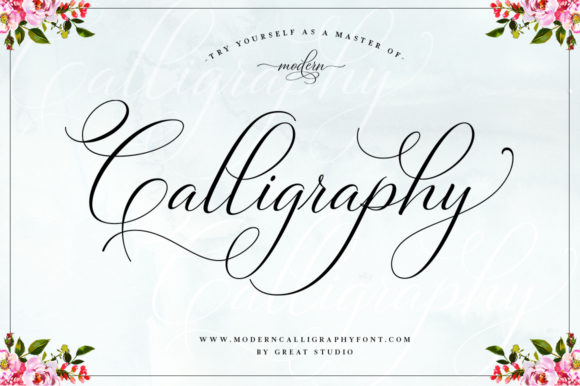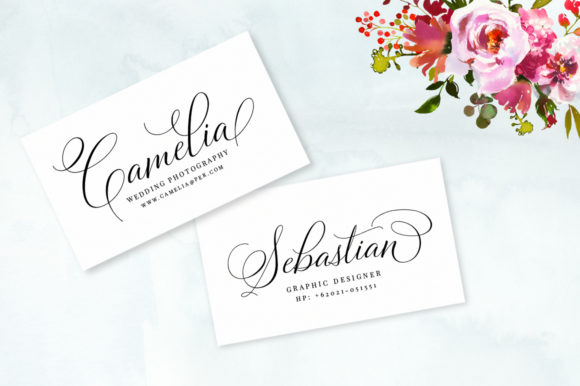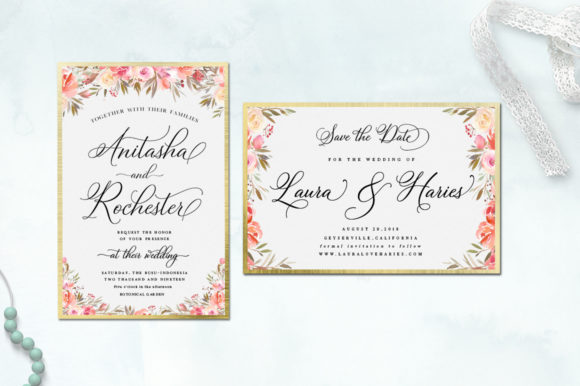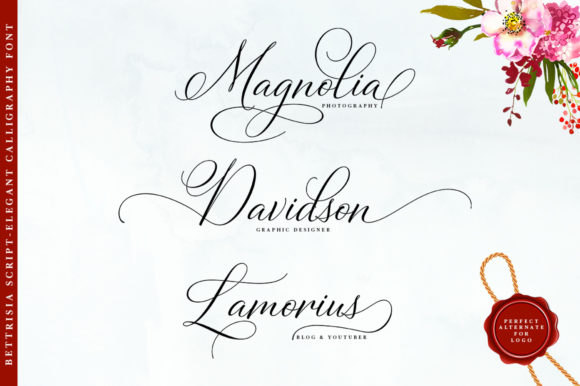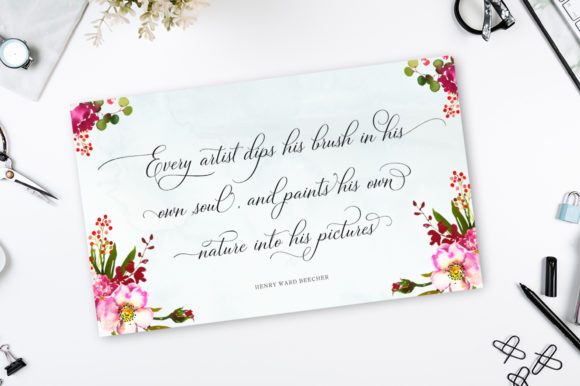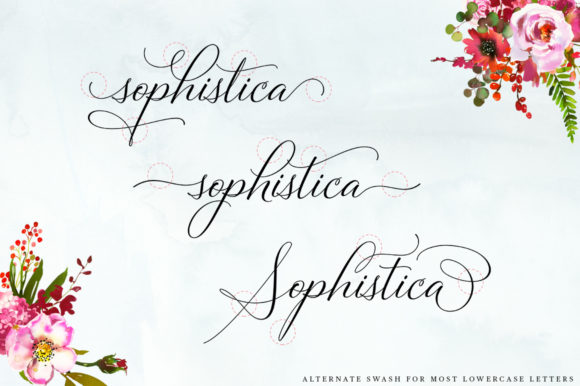
Introducing Bettrisia Script Font: Elevate Your Designs with Elegance
In the world of typography, few fonts manage to capture the essence of elegance and sophistication as effectively as the Bettrisia Script Font. This modern and elegant calligraphy script is a masterpiece of font design, blending the classic decorative elements of copper script with a modern touch. The result is a font that exudes style, femininity, and sensuality, making it an ideal choice for designers and crafters looking to add a touch of glamour to their projects.
The Design Behind Bettrisia
Bettrisia was designed with meticulous attention to detail, ensuring that every character, from the flowing strokes to the intricate connections, contributes to a stylish and elegant aesthetic. This high level of detail not only makes the font easy to read but also allows for a wide range of creative applications. Whether you’re working on a logo, invitation, menu, or novel, Bettrisia provides the perfect blend of sophistication and modernity.
Key Features of Bettrisia Script Font
- Modern and Elegant Calligraphy Script: Bettrisia brings a fresh take on traditional calligraphy, making it stand out in any design.
- Beautiful Characters and Classic Decorative Copper Script: The font combines aesthetic appeal with readability, ensuring your designs are both visually stunning and easy to comprehend.
- High Detail for Stylish Elegance: Every element of Bettrisia has been crafted with precision, guaranteeing a sophisticated look that elevates your designs.
- Easy to Read: Despite its decorative nature, Bettrisia maintains a high level of legibility, making it suitable for a variety of projects.
- Feminine and Sensual Look: The font adds a smooth, clean, and sensual touch to designs, perfect for projects aiming to convey elegance and grace.
- Includes Simple yet Fancy Letter Connections: These connections offer versatility, allowing designers to create unique and glamorous content.
Creative Applications of Bettrisia
The versatility of Bettrisia Script Font makes it an invaluable asset for a wide range of design projects. Here are some of the many creative ways you can use Bettrisia:
- Glamorous Logos: Create stunning logos that capture the essence of your brand with Bettrisia’s elegant and modern appeal.
- Invitations: Whether it’s a wedding, birthday, or corporate event, Bettrisia can help you design invitations that set the tone for sophistication and style.
- Menus & Covers: Elevate your restaurant, cafe, or product packaging with menus and covers that boast a clean, elegant look.
- Stationery: Add a touch of elegance to your letters, notes, and official documents with Bettrisia.
- Novels and Publications: Give your book or magazine a stylish and contemporary look with Bettrisia, perfect for titles, headings, and highlighted text.
Why Choose Bettrisia Script Font?
In a sea of fonts, Bettrisia stands out for its unique blend of modernity and classic elegance. Its design caters to the needs of designers and crafters looking for a font that not only looks beautiful but also offers versatility and readability. With Bettrisia, you can ensure your designs are not only visually appealing but also convey a sense of sophistication and style.
Bettrisia Script Font is more than just a typeface; it’s a design element that can transform your projects with its elegant and modern calligraphy. Its detailed design, combined with its readability and versatility, makes it an excellent choice for a myriad of applications. Whether you’re a professional designer or a crafter, Bettrisia offers the perfect tool to add a touch of glamour and sophistication to your work. Embrace the elegance of Bettrisia and elevate your designs to new heights of style and creativity.